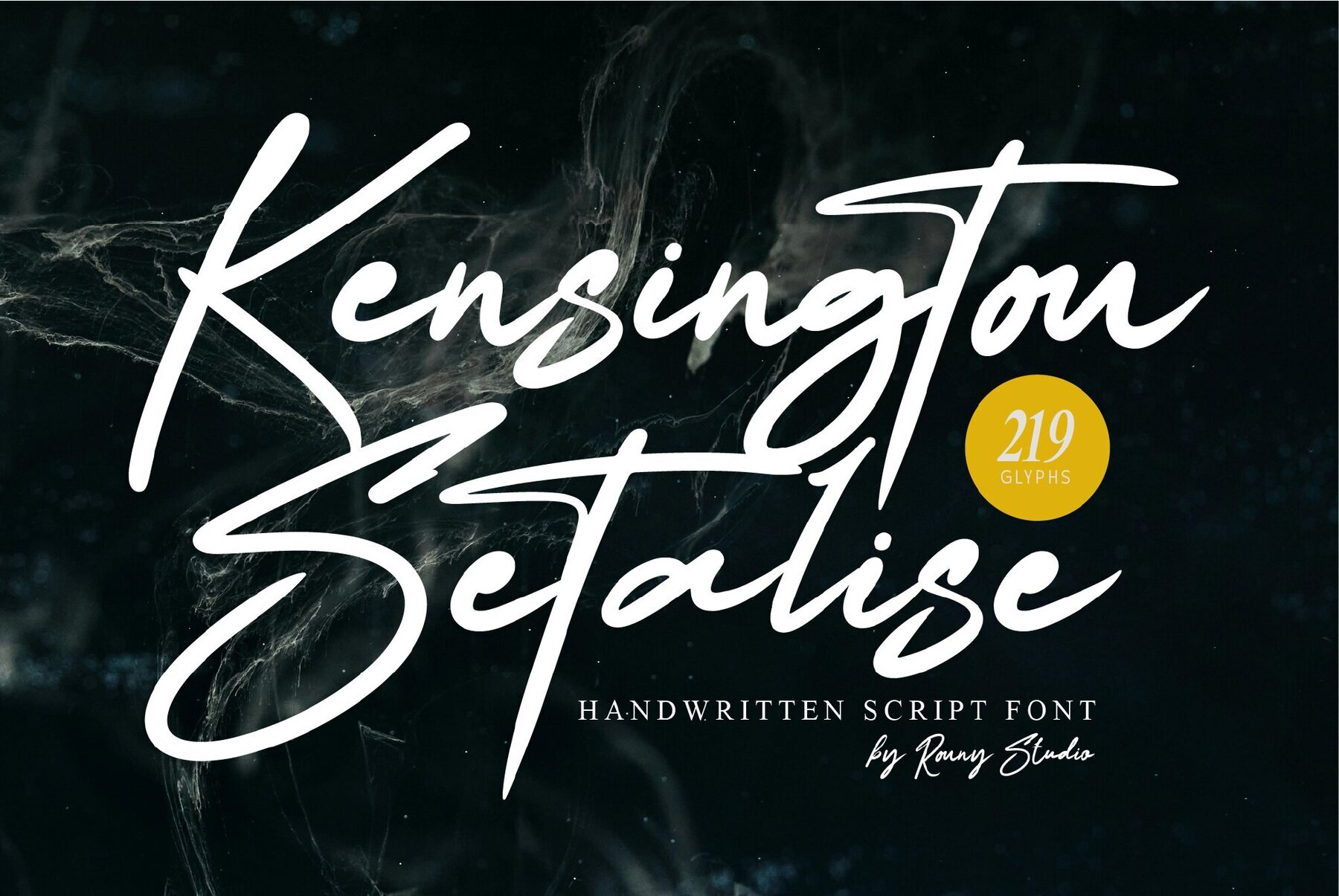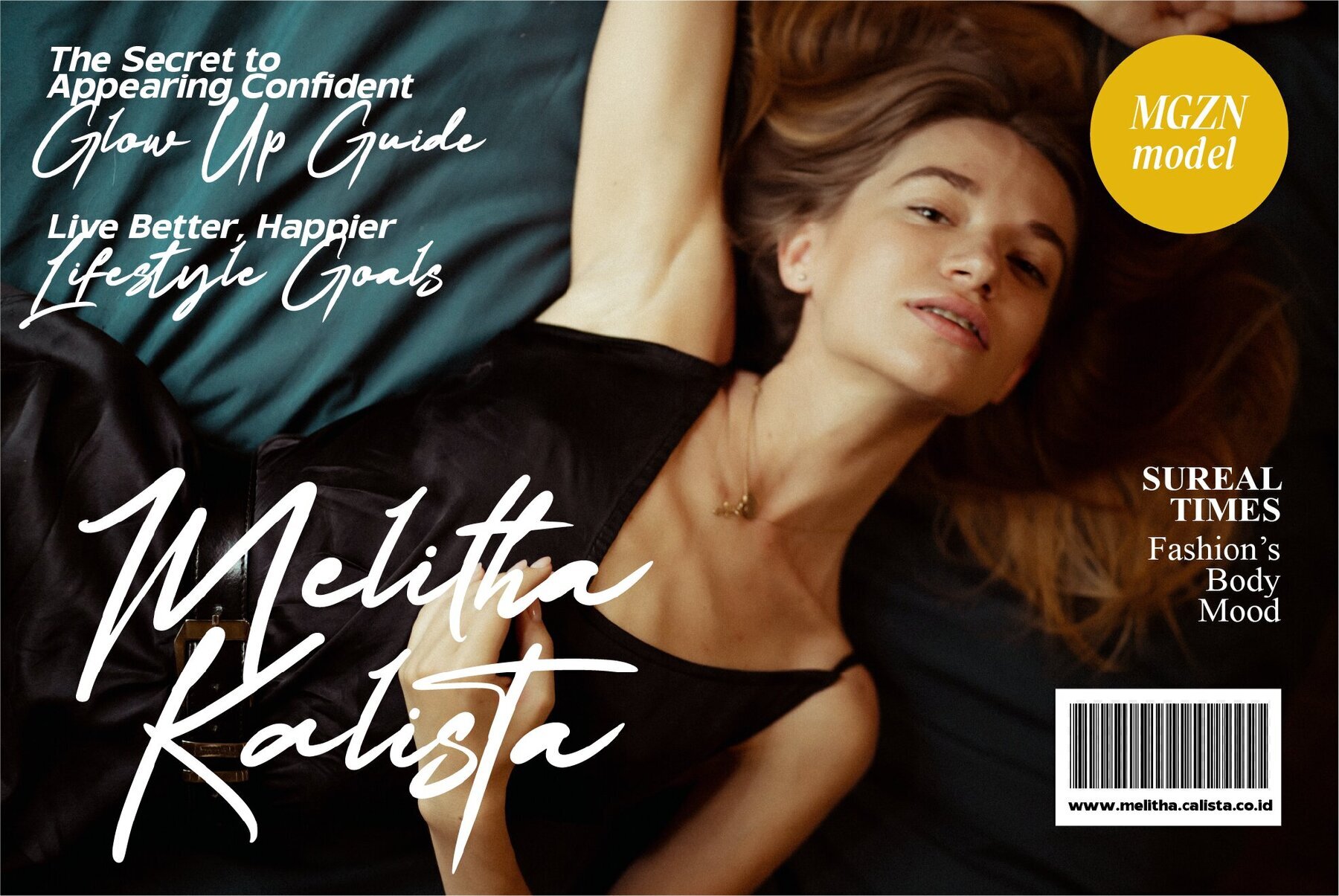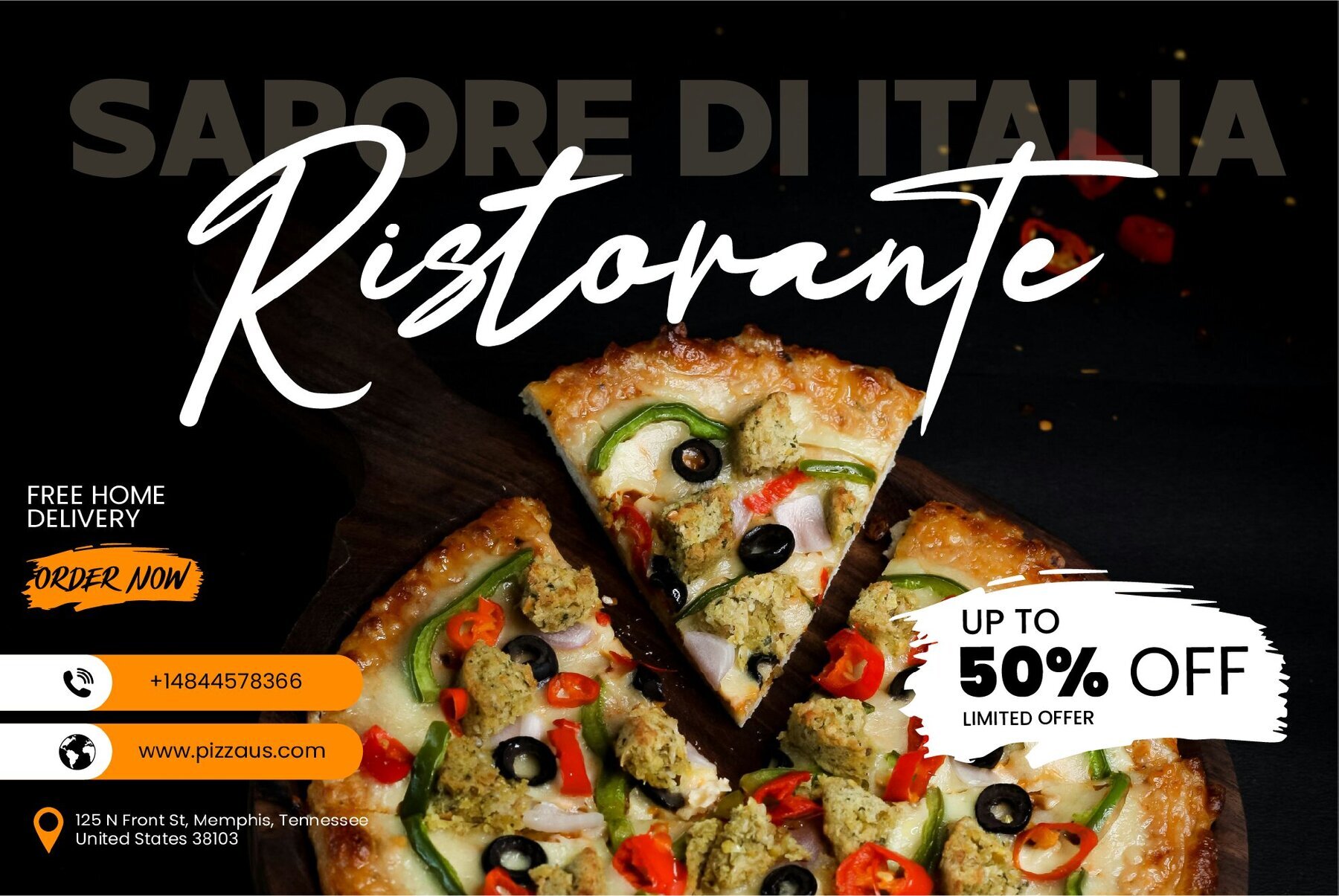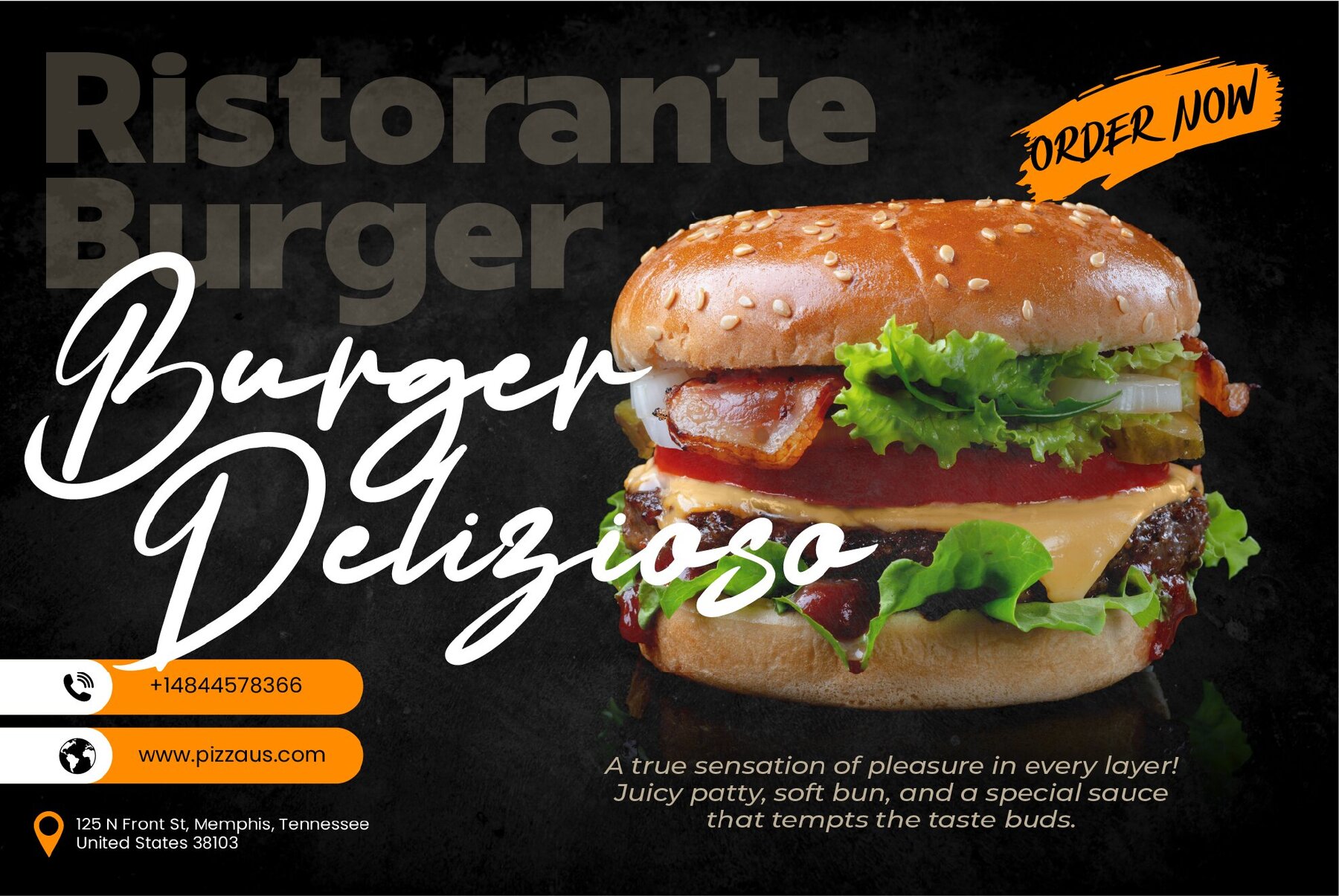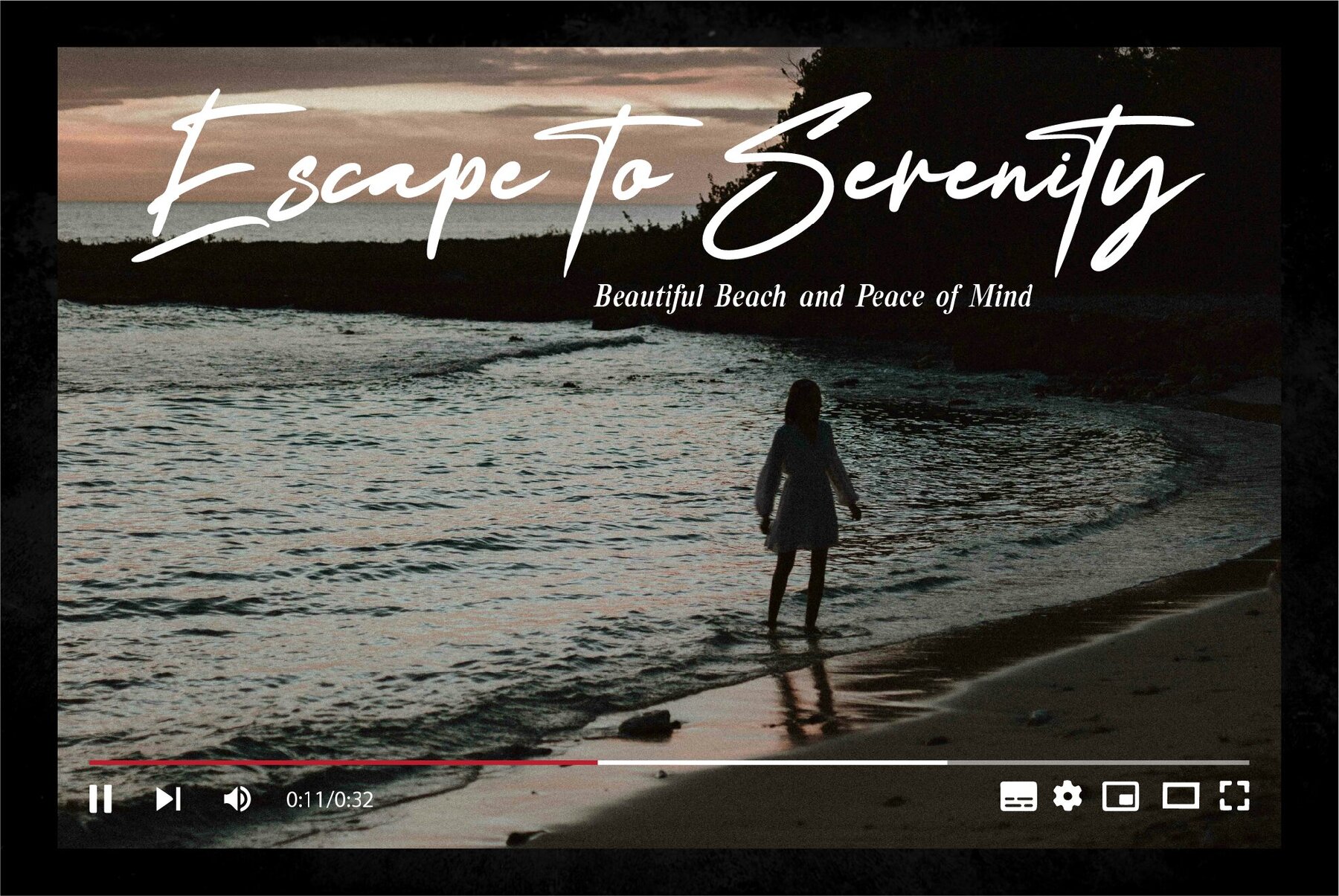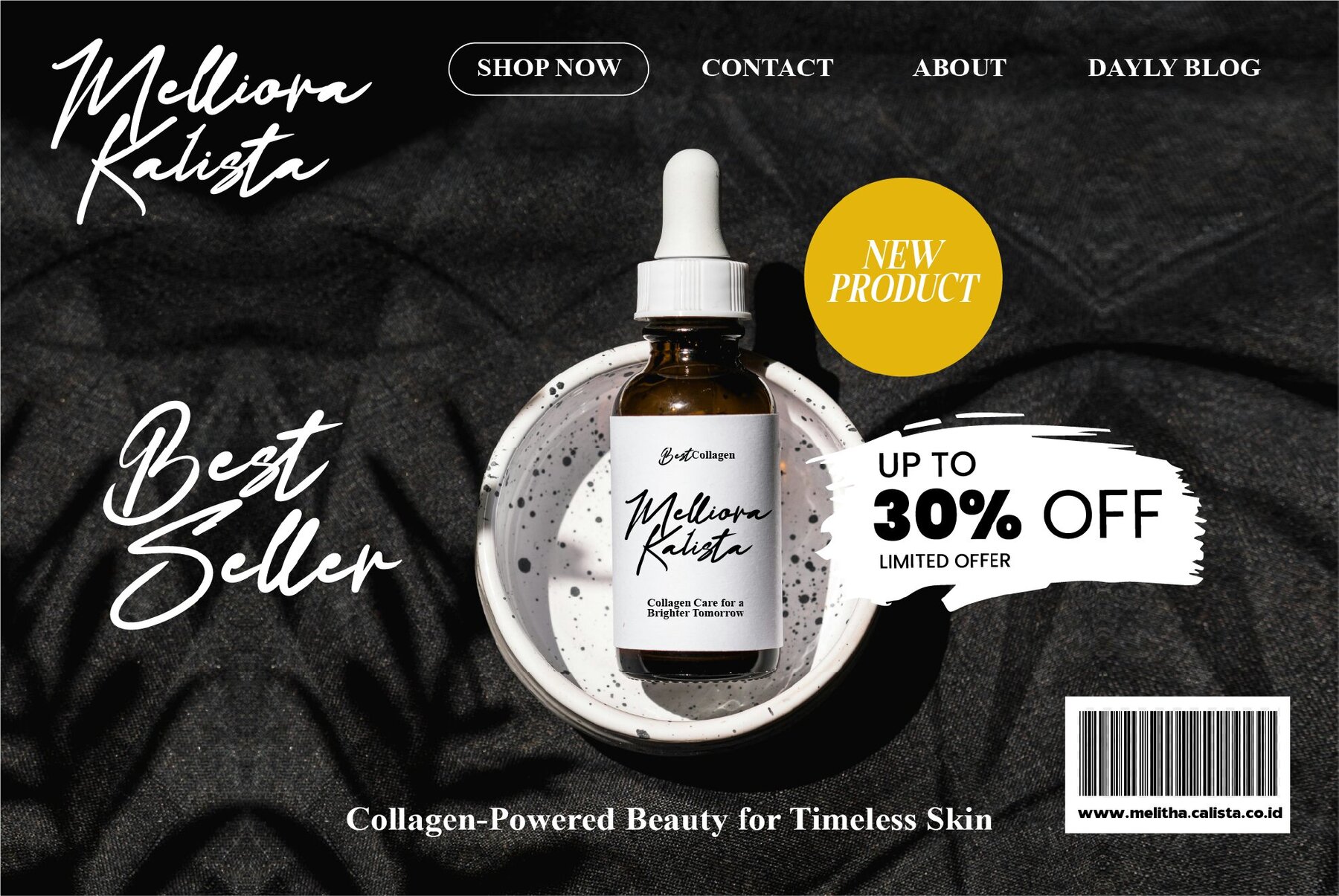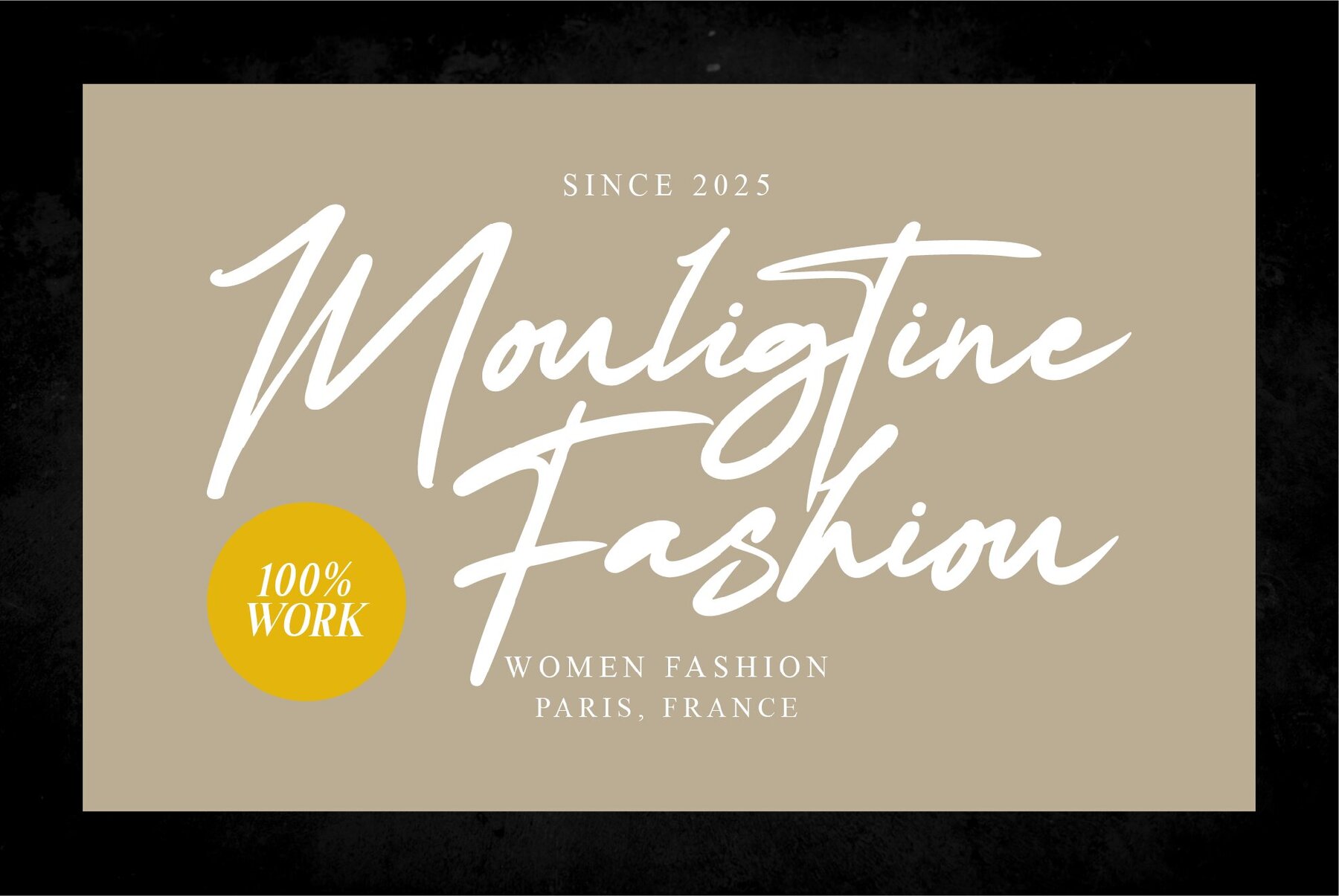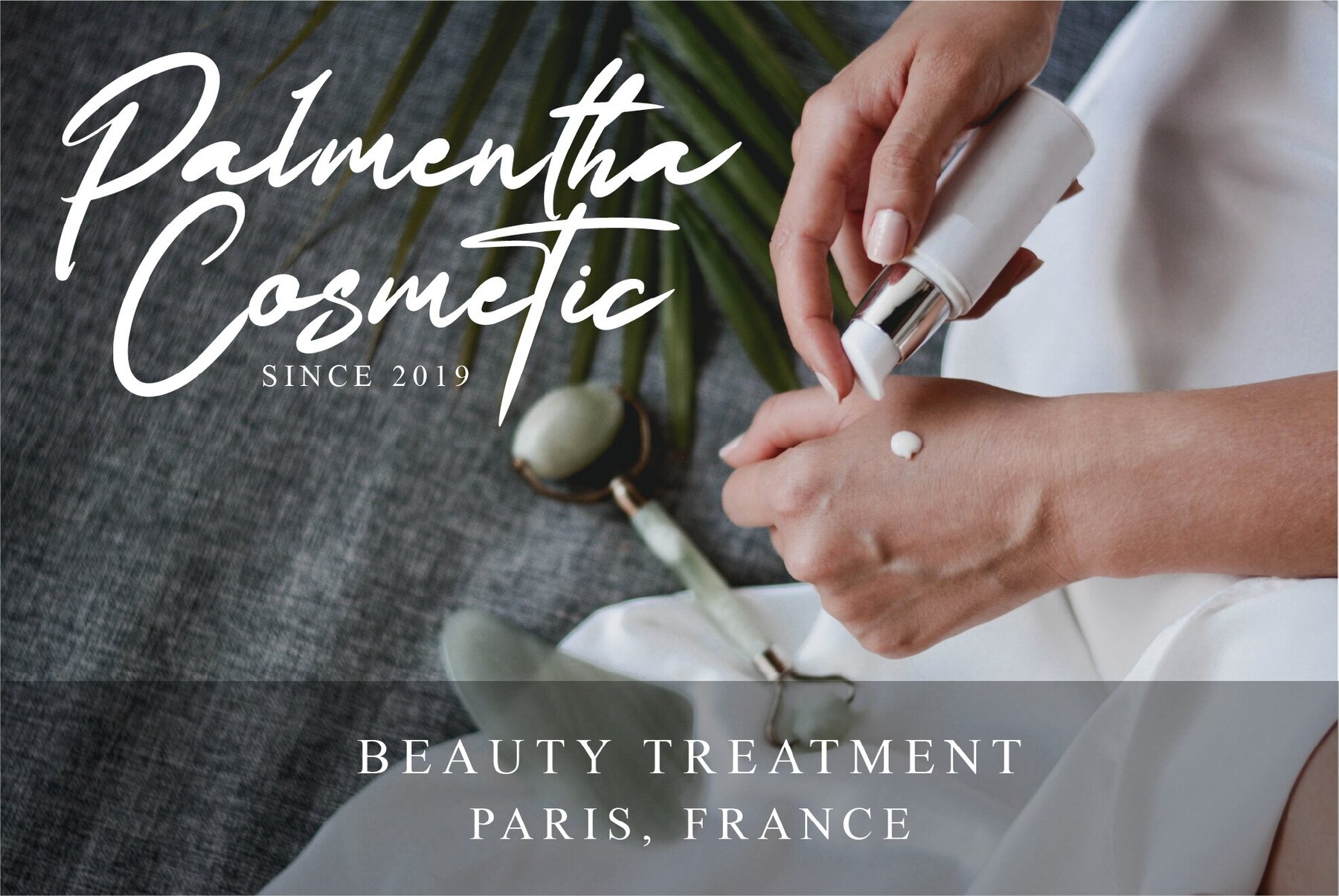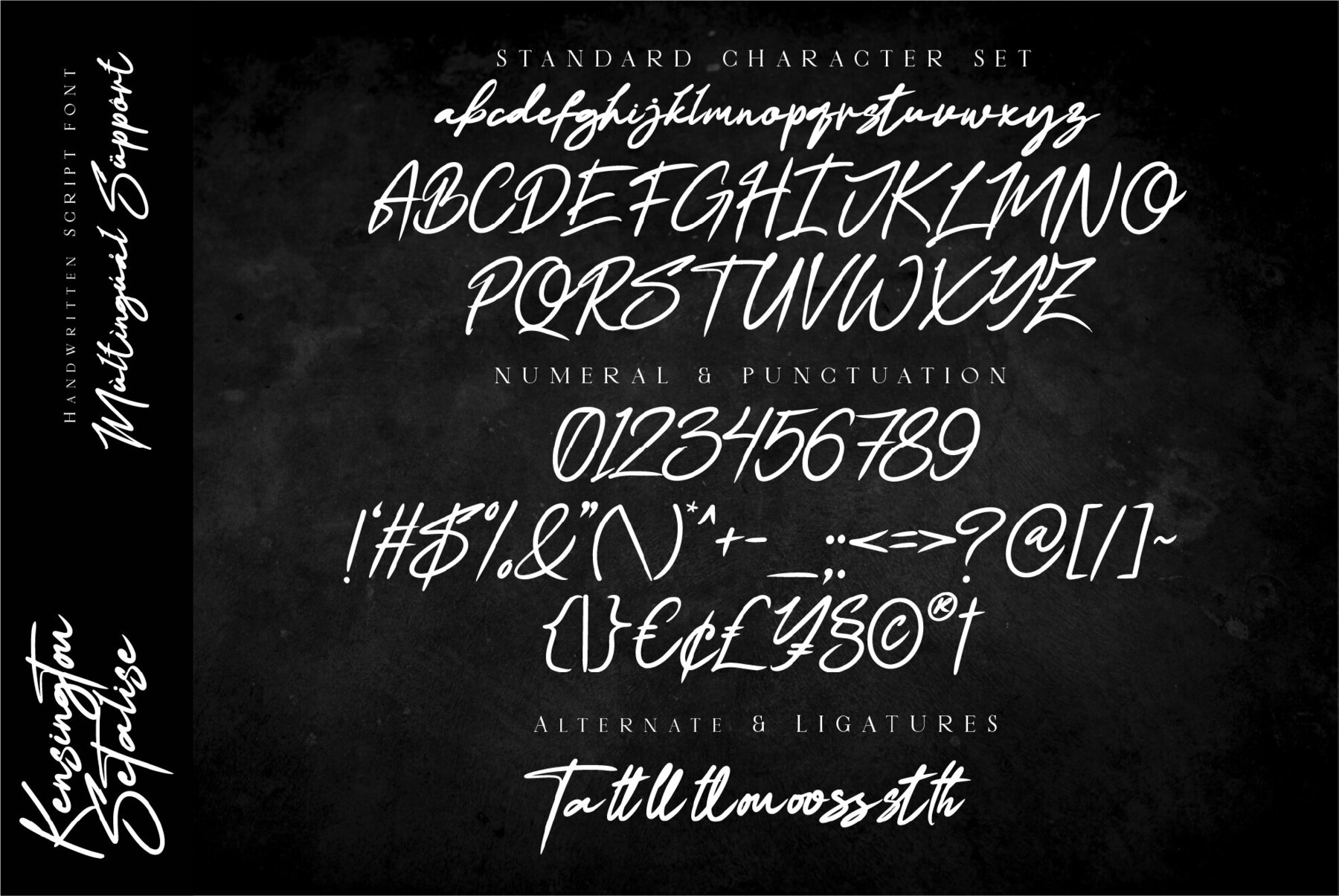
Kensington Stalise Font
Kensington Stalise is a modern script font characterized by its simple, elegant, and luxurious style. This sophisticated typeface is perfect for a variety of design projects, including branding, logos, movie titles, invitations, and product packaging. Its smooth curves and refined character lend an exclusive and professional appearance, making it particularly suitable for designs that require a touch of class and distinction.
The font includes a comprehensive set of features to enhance your creative work: uppercase and lowercase letters, numbers and punctuation, alternate characters and ligatures, swashes, and multilingual support. Additionally, Kensington Stalise is PUA encoded, allowing easy access to its rich array of glyphs. Use this versatile script to add elegance and sophistication to your logos, social media posts, and other creative ventures.